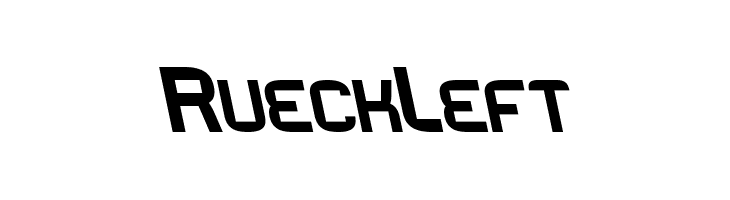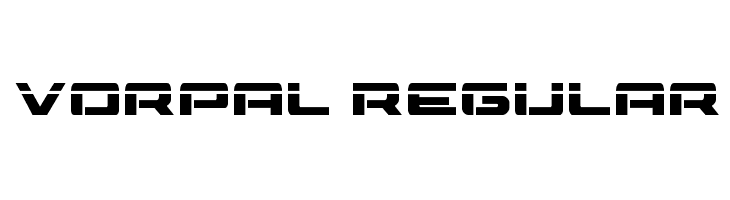
A bold, 3D font with sharp serifs and a carved, sculptural look.
An elegant script font with flowing, high-contrast strokes and ornate details.
A playful and whimsical font with bold, dynamic letterforms and a unique style.
A bold, gothic-inspired font with sharp, angular lines and an italicized style.
A bold, artistic font with a leftward slant and decorative elements.
A bold, playful font with a three-dimensional outline effect.
A bold, geometric font with angular, blocky letterforms.
A modern, geometric font with clean lines and rounded edges.
A bold, futuristic font with a digital, angular design.